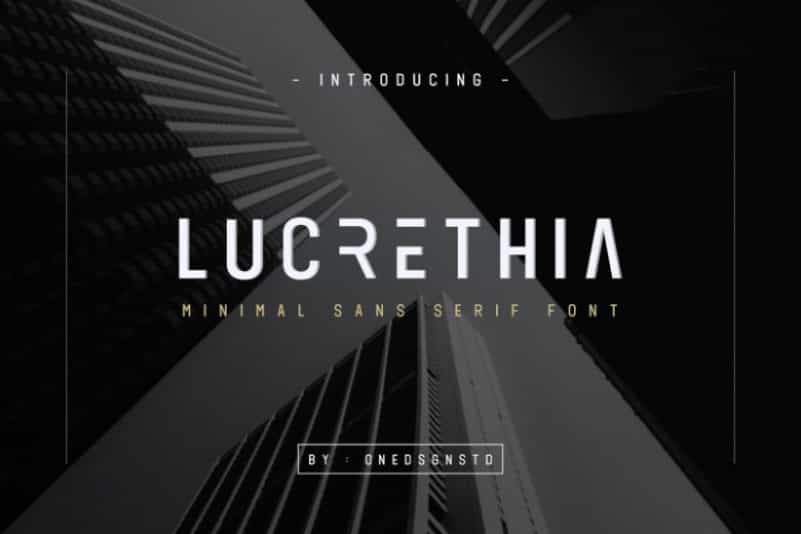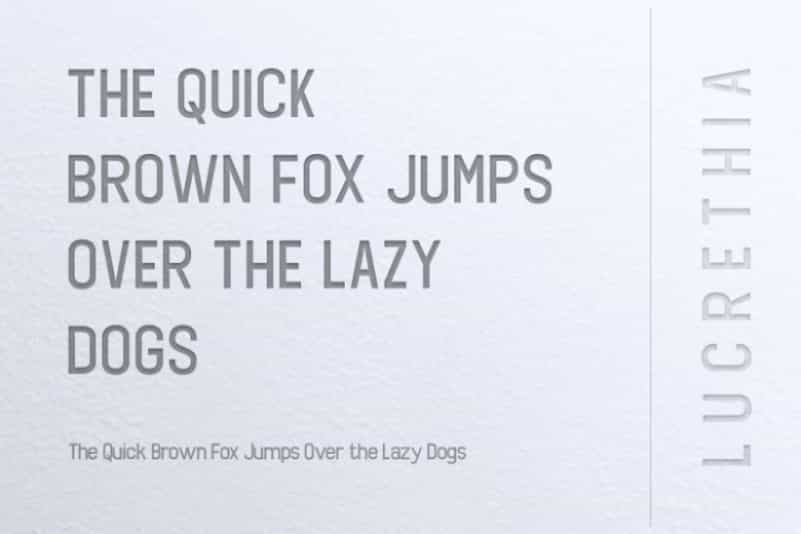
Introducing Lucrethia Sans Serif Font! LUCRETHIA Inspired by the thought of minimalism and a balance of modern styles with controlled letterforms. Another family of this fonts will follow in upcoming updates. You can use for various purpose like headline, logos, posters, t-shirt, post cards, bussiness card, and much more.